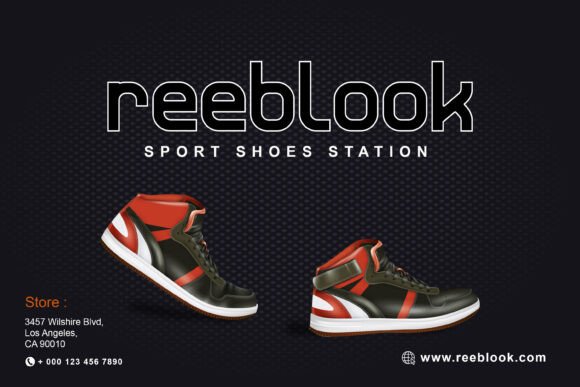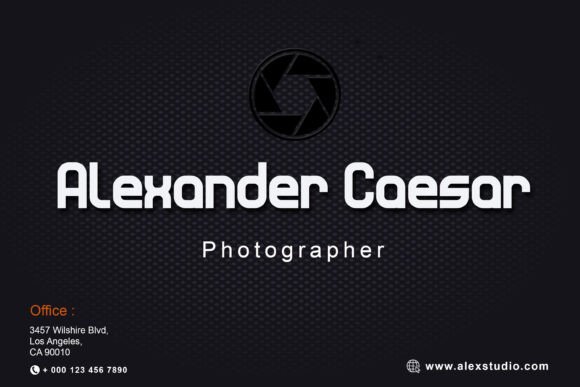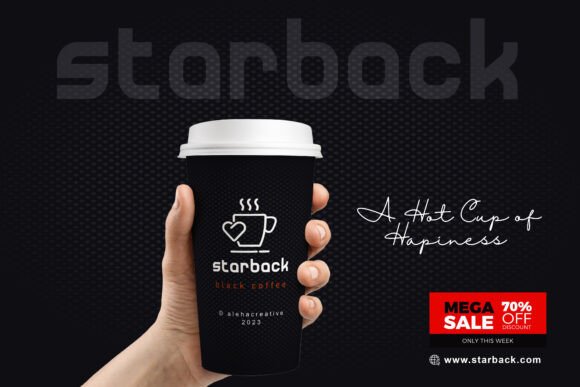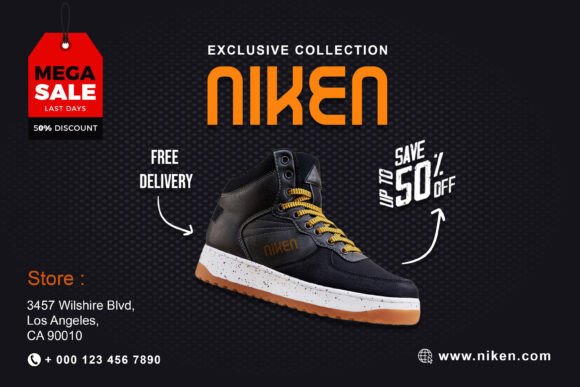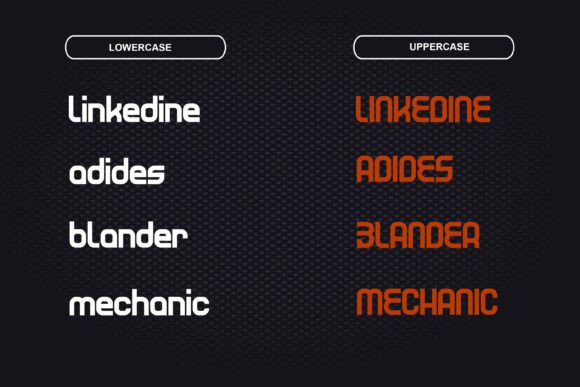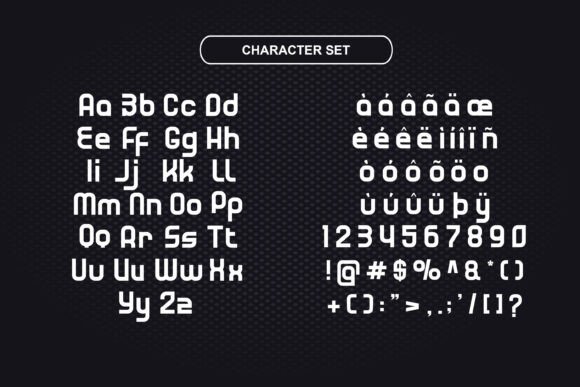
Introduction to Linkedine Font
Have you ever stared at a blank canvas, waiting for inspiration to strike? The blank page stares back, taunting you to bring your creative vision to life. This is the moment when the right design resource can make all the difference. Enter the Linkedine Font, a game-changing addition to your design arsenal.
With its sleek, modern aesthetic and bold lines, Linkedine Font is the perfect choice for designers seeking a high-quality font that commands attention. Whether you’re working on a creative project that requires a clean and sophisticated look or simply need a reliable design partner, Linkedine Font delivers. Its solid lines and refined feel make it an ideal choice for logos, posters, and headlines that demand to be noticed.
Key Features of Linkedine Font
- Linkedine Font comes in a single weight, making it perfect for body text, headings, and titles in creative projects.
- With a clean and modern aesthetic, this font is suitable for a wide range of design applications, from branding and marketing materials to digital products and publications.
Honest Review: Linkedine Font
As a designer, I’m always on the lookout for high-quality design resources to elevate my creative projects. Recently, I stumbled upon the Linkedine Font, and I’m excited to share my honest review.
What works well: ✨ The Linkedine Font is free to download, making it a fantastic option for designers on a budget. The font’s modern design and sleek aesthetic make it perfect for contemporary creative projects. I also appreciate that it comes with a transparent background, giving me the flexibility to customize it to suit my design needs.
Limitations: ⚠️ While the Linkedine Font is a great addition to any design arsenal, it’s not without its limitations. The font’s versatility is somewhat limited by its relatively simple design, which may not be suitable for more complex or avant-garde projects. Additionally, the font’s licensing terms are somewhat restrictive, so be sure to review them carefully before using it in a commercial project.
Overall, I’m impressed with the Linkedine Font’s quality and potential. While it may not be the most versatile font, it’s a great option for designers who need a modern, high-quality font for their creative projects. With its transparent background and free download, it’s definitely worth checking out.
- Modern design and sleek aesthetic
- Perfect for contemporary creative projects
Tips for Getting the Most Out of Linkedine Font
To get the most out of the Linkedine Font, use it in conjunction with other high-quality design resources, such as graphics and images. Experiment with different font sizes and colors to create a unique and eye-catching design. Additionally, consider using the font with a transparent background to create a more subtle and sophisticated look.
The Linkedine Font is suitable for a variety of creative projects, including business cards, brochures, and marketing materials. It is also a great choice for personal projects, such as wedding invitations and social media graphics. With its high-quality design and free download option, the Linkedine Font is a valuable resource for designers and non-designers alike.